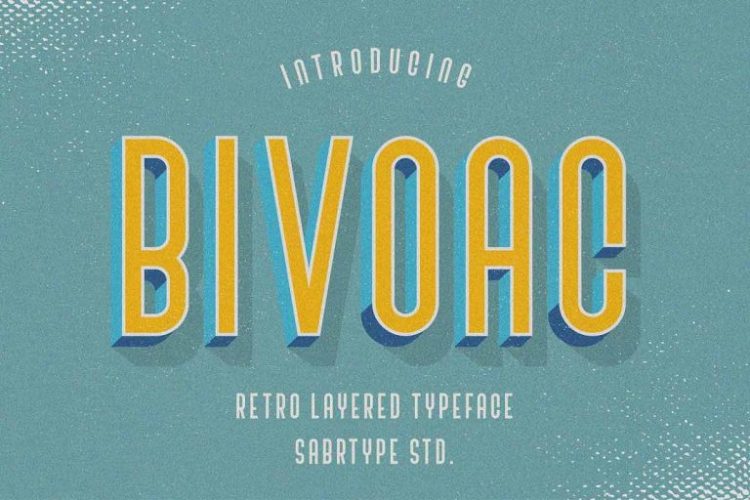
Bivoac Font Layered
Bivoac is a font with a Layered system, you can easily use it. This font is suitable for a 3D type, vintage poster project.
It has Multilingual support and works with following languages: English, Danish, Dutch, Estonian, Faroese, Filipino, Finnish, French, German, Hungarian, Icelandic, Irish, Italian, Norwegian, Polish, Portuguese, Spanish, Swedish.
Bivoac Layered Features:
• Uppercase
• Lowercase
• Numerals & Punctuations
• Multilingual Support